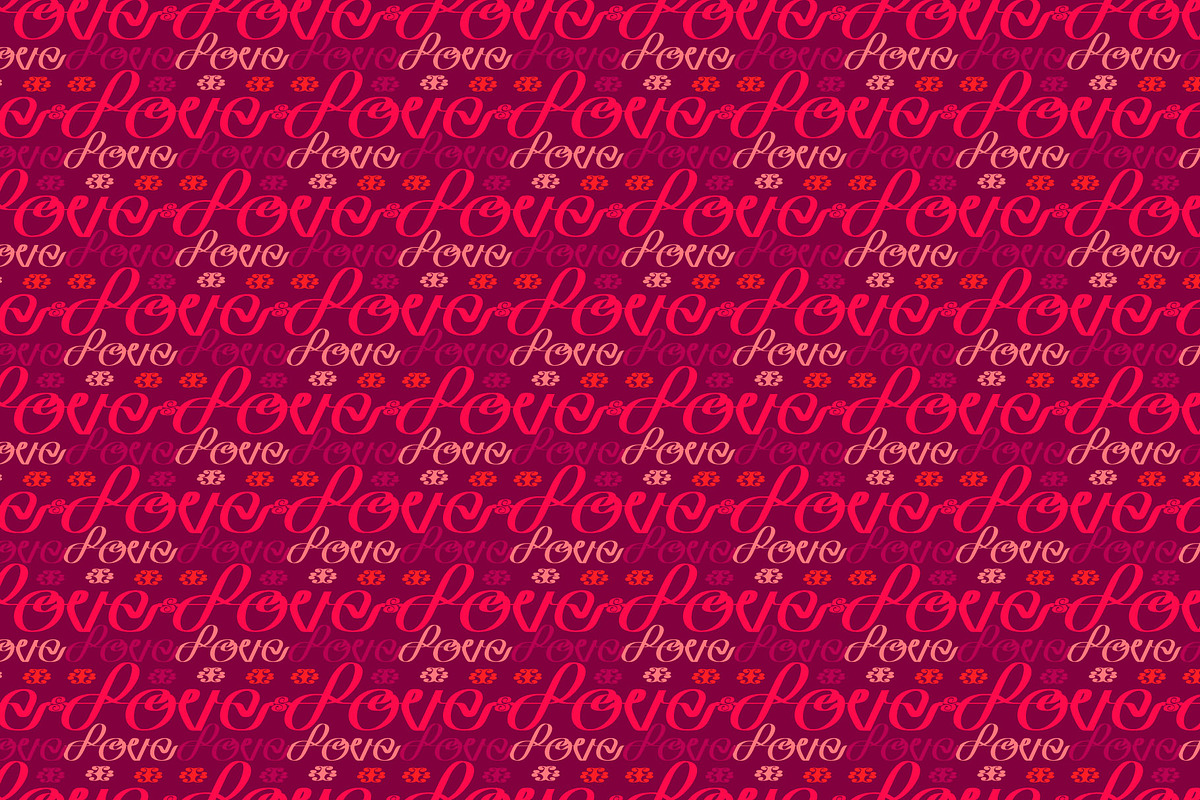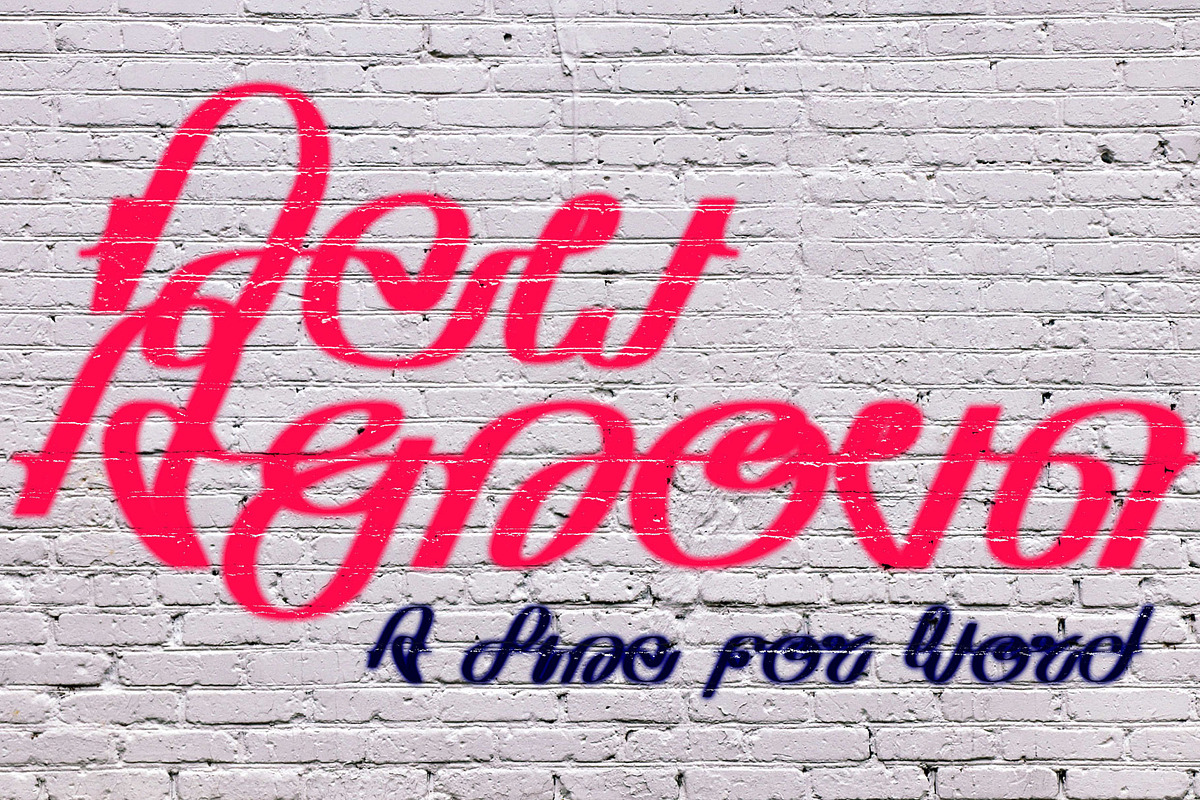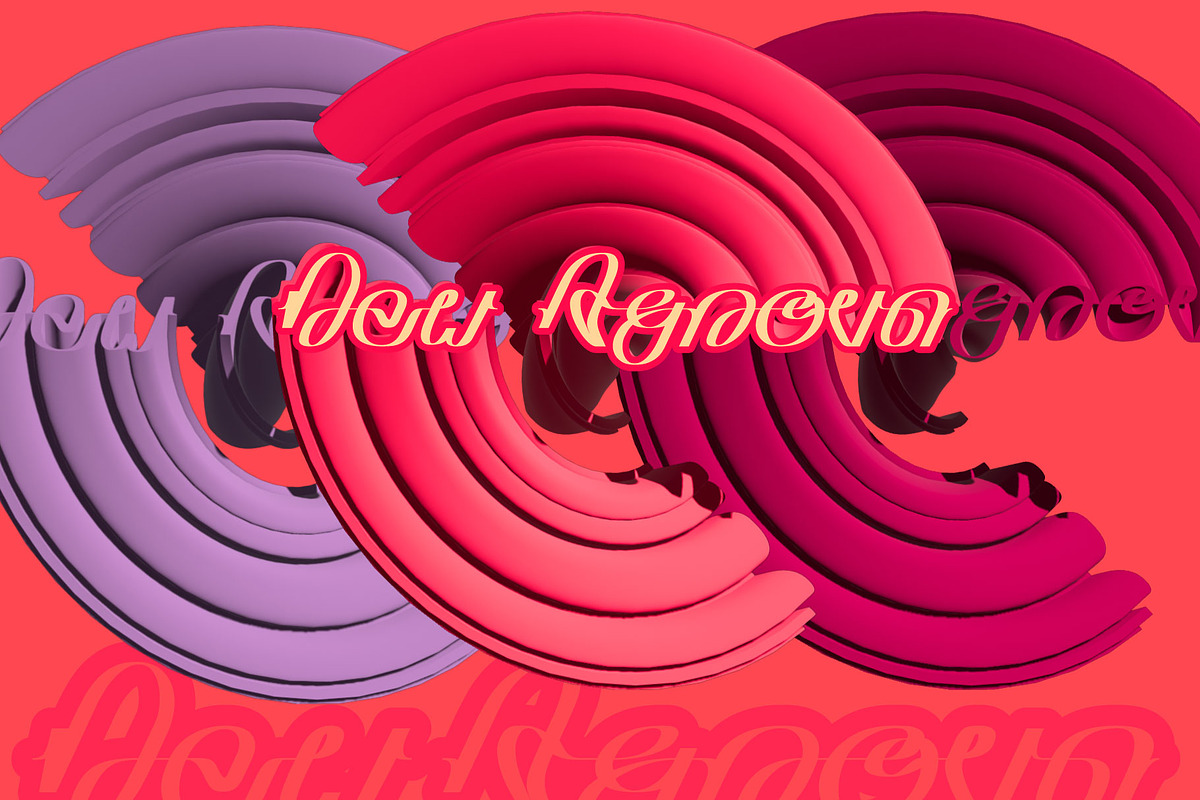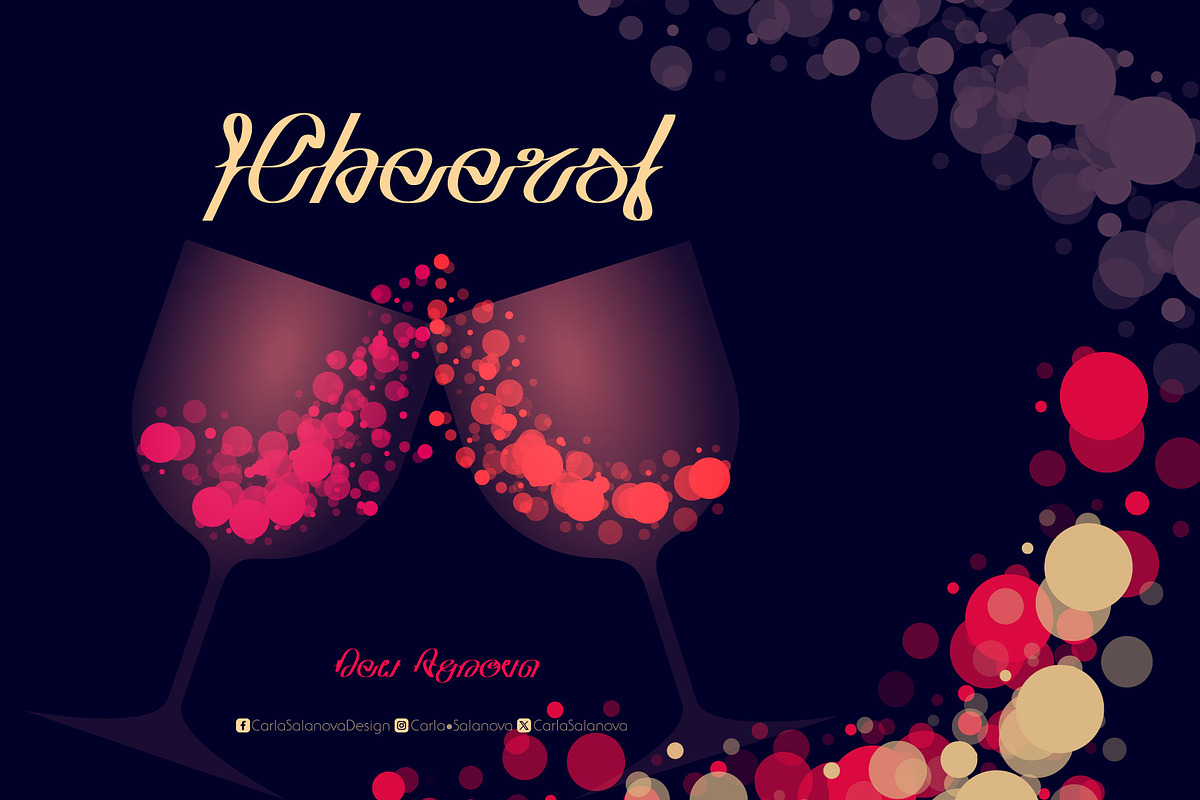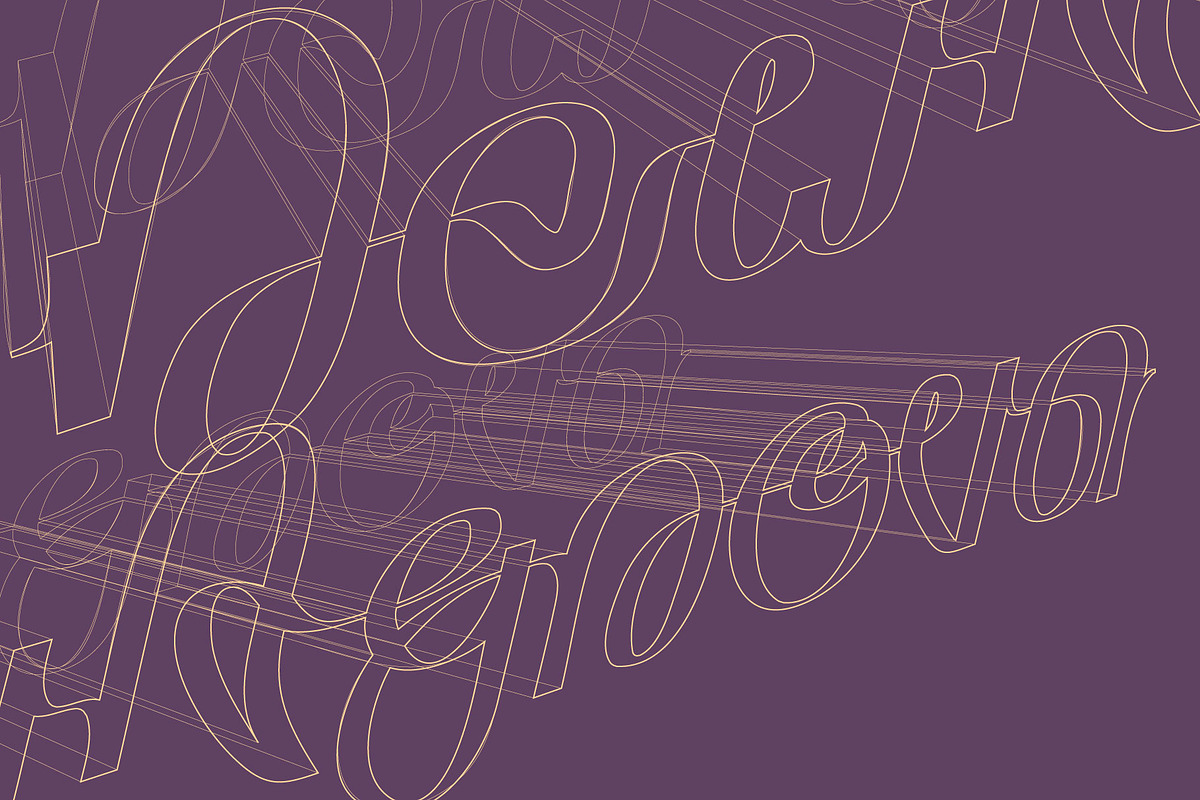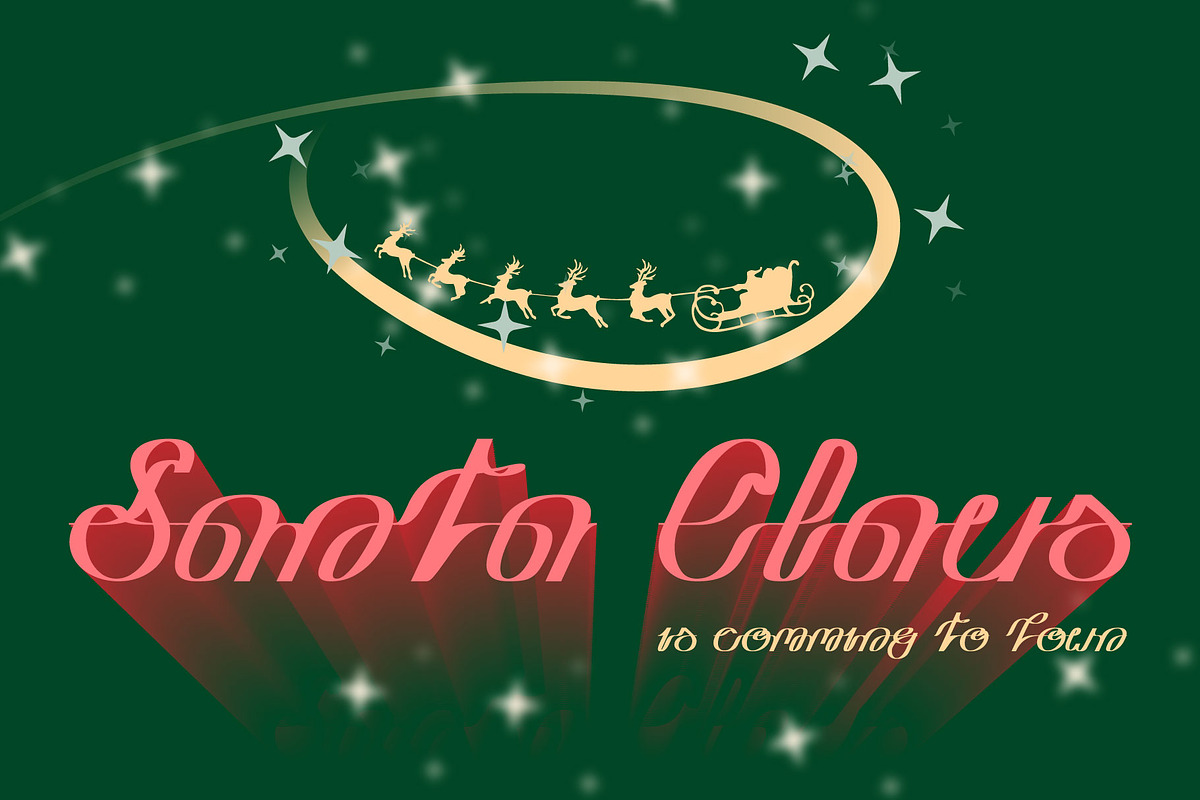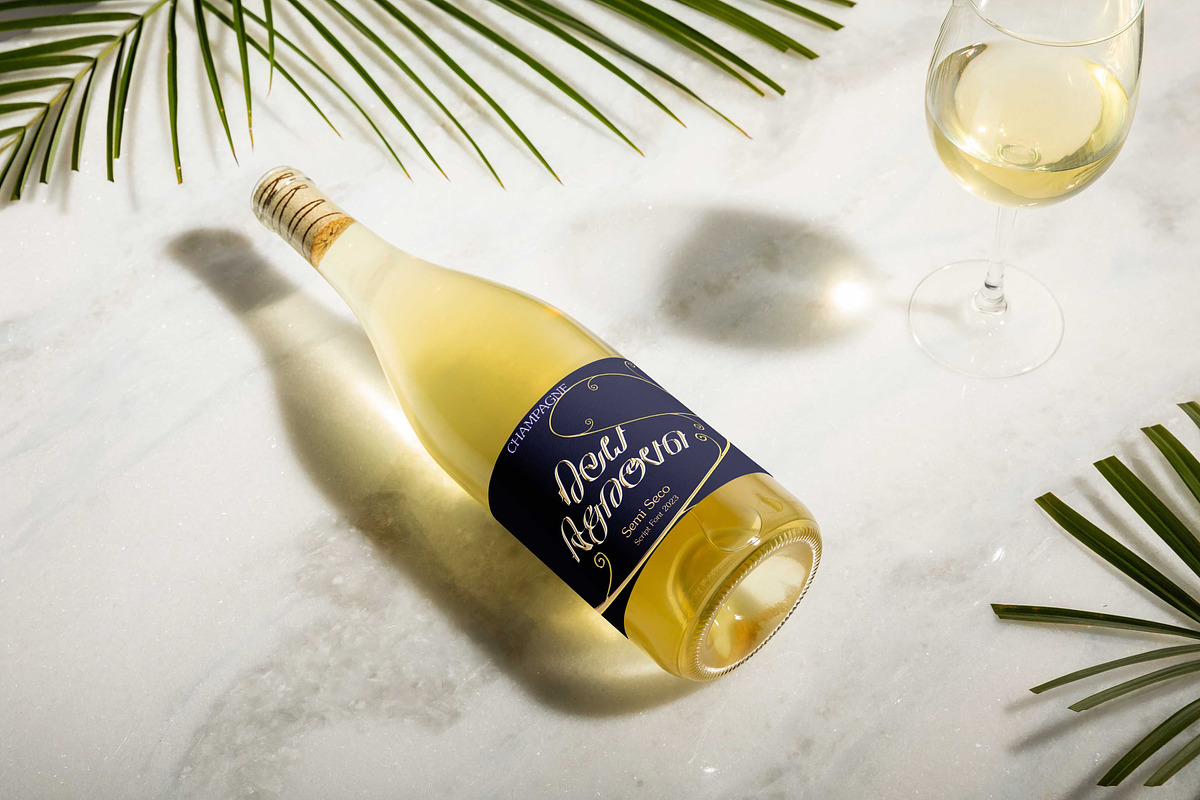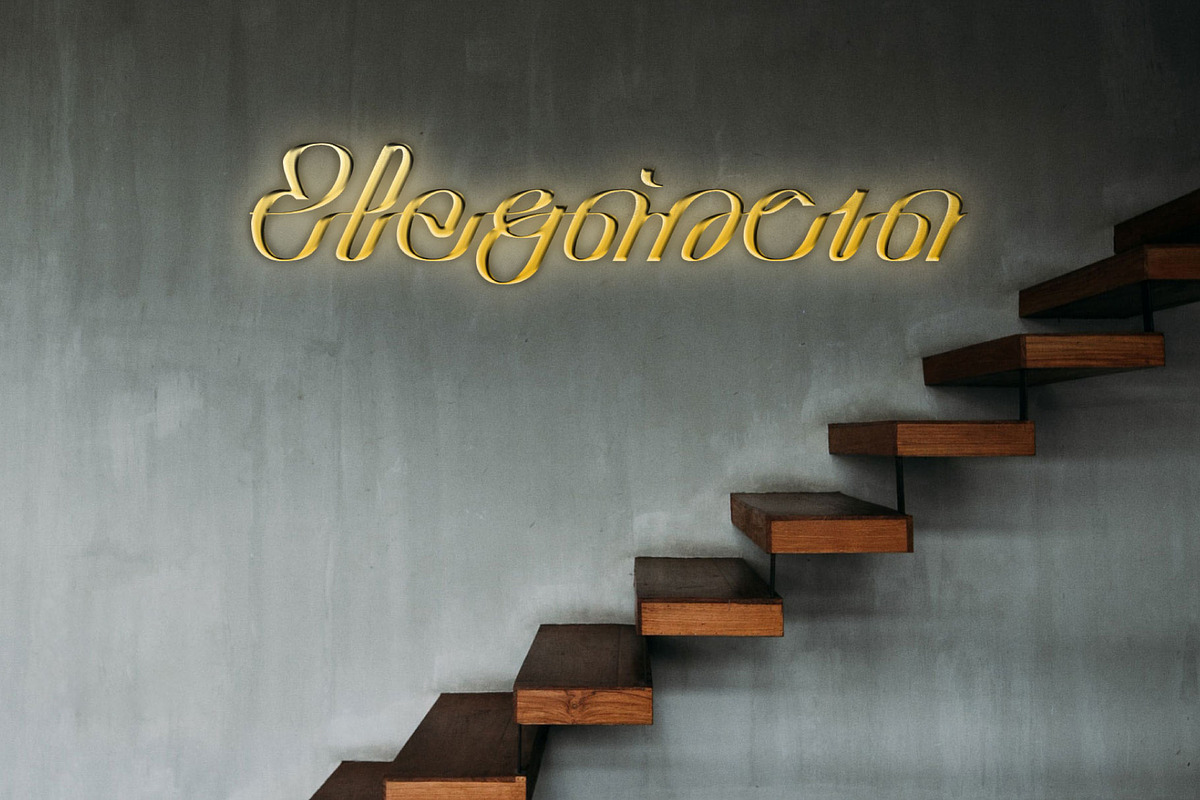
New Agnova Script Handwrite
New Agnova is an Script typeface with a continuous line to help with materials, formats that require this quality. It is ideal for representing neon, corporate, graffiti-style art and cursive writing animations; it also has handwriting properties since it was made with a brush and digitized.